Choosing the best font for posters is crucial for making an immediate impact and ensuring readability from a distance. The font should align with the event’s tone and brand identity, ensuring the audience sees and feels the message. These chosen fonts will give your design a unique typographic look!
Orange Squash – Bold Vintage Serif Font
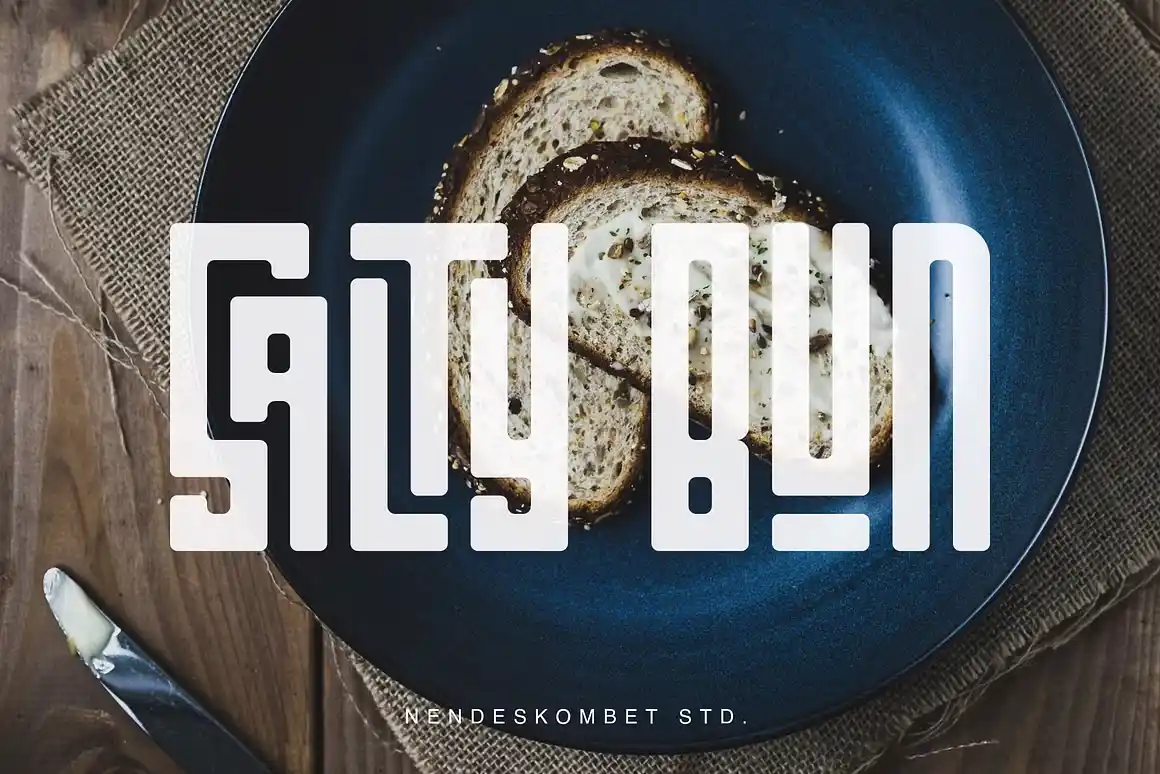
SALTY BUN – Ultra Condensed Square font!
Haglos Script Inspired by Modern Vintage & Retro style
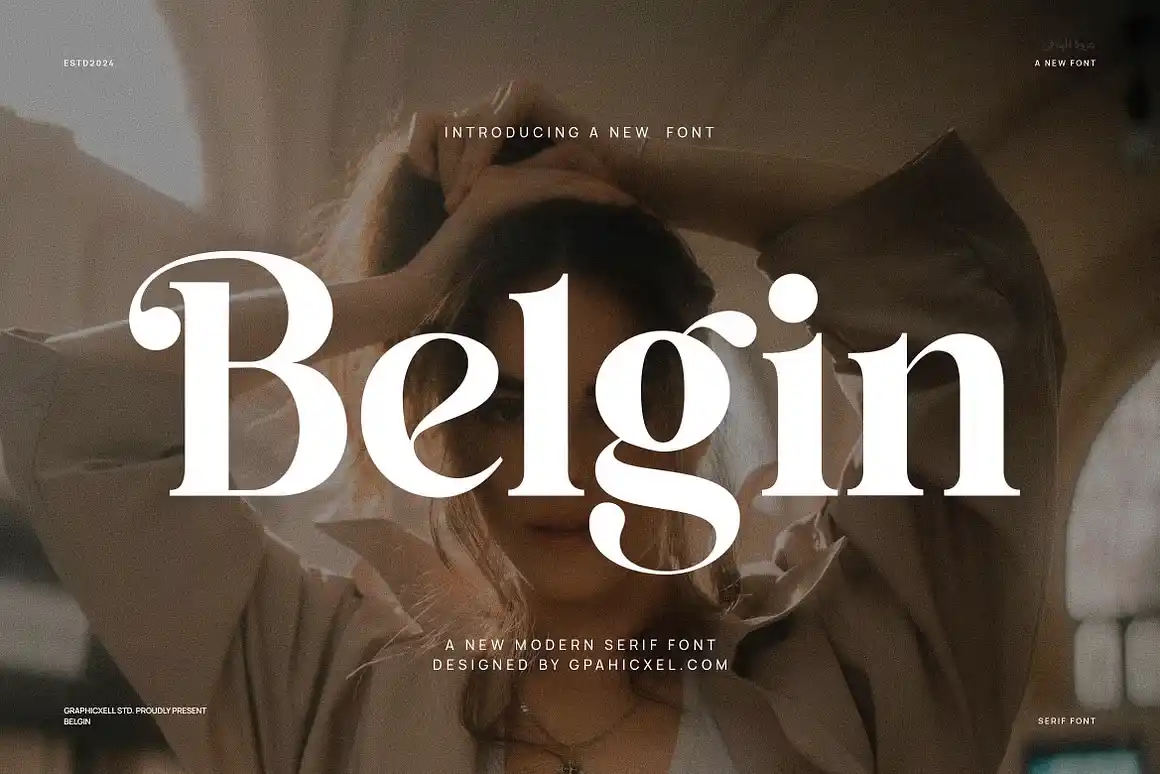
Belgin Ligature a modern serif typeface
Aida, a high-contrast display font